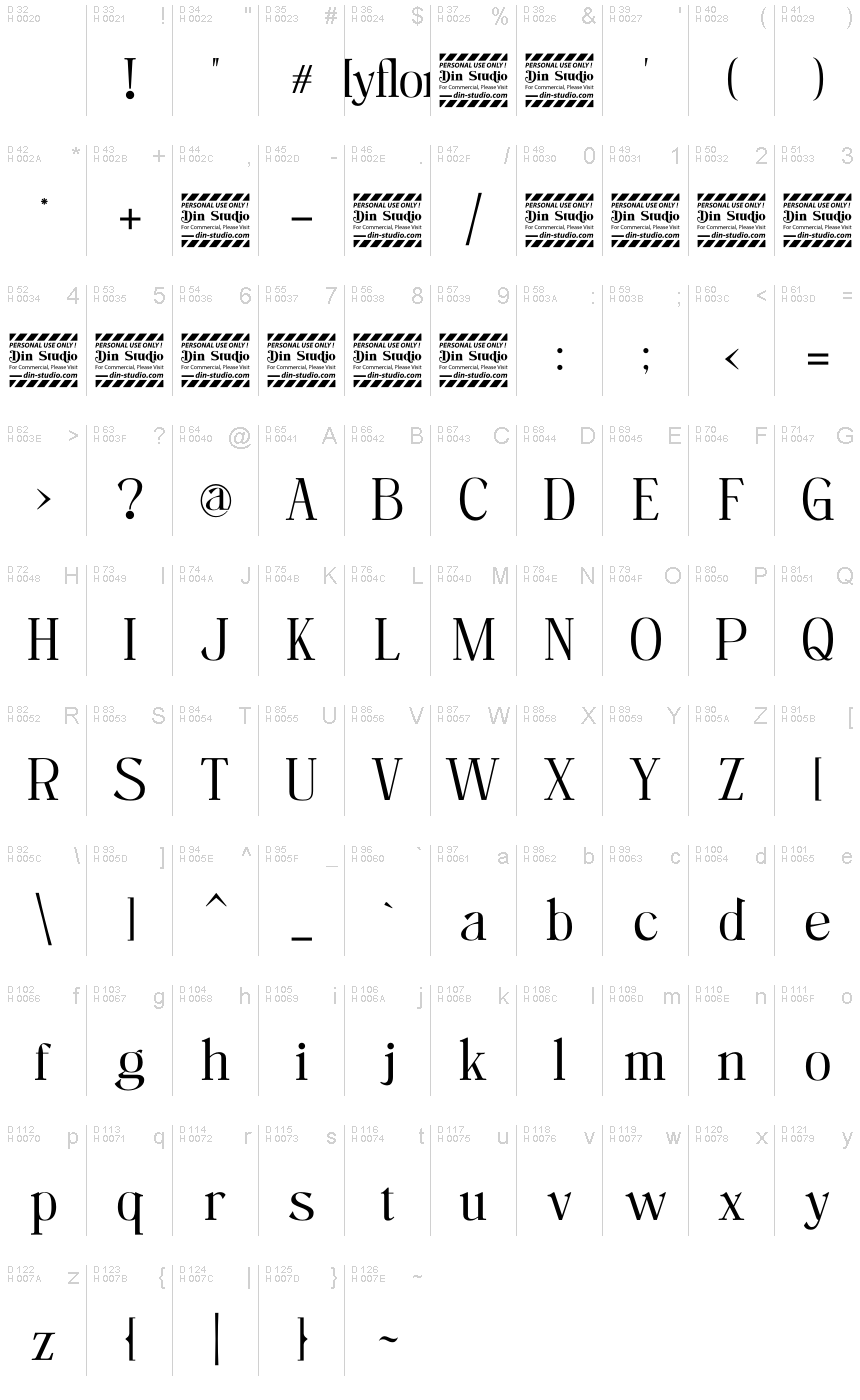
Myflora Personal Use
Myflora, crafted by Nathatype, embodies an enchanting blend of elegance and charm. This serif font captivates with its graceful curves and distinctive flourishes, making each letter a visual delight. Its light strokes provide a subtle finesse, while the generous spacing invites readability without compromising style.
The font's aesthetic is both contemporary and timeless, suitable for creating an atmosphere of sophistication in various design contexts—from wedding invitations to upscale branding materials. Myflora effortlessly enhances editorial layouts, giving headings a distinctive flair that draws the eye without overwhelming the content.
Ideal for projects that require a touch of elegance and refinement, Myflora stands out as a versatile choice for adding personality to any creative work while maintaining clarity and appeal.